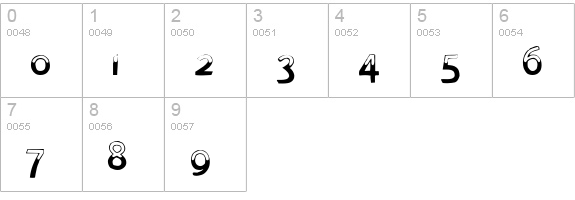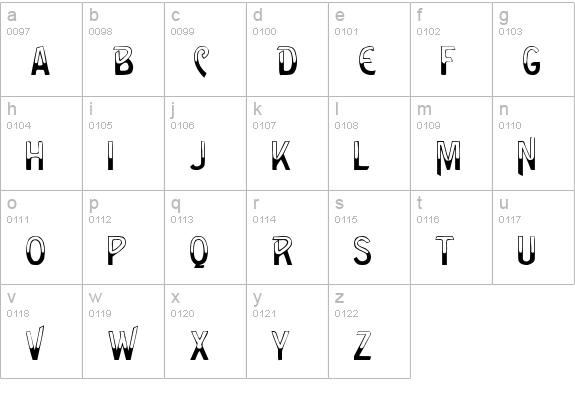
GreenCaps Font Details
GreenCaps is a modern and stylish font that exudes a sense of freshness and innovation. With its bold and eye-catching capital letters, this font is perfect for making a statement in any design project. The clean lines and sleek design of GreenCaps make it versatile and suitable for a wide range of applications, from logos to headlines to social media graphics. The best part? GreenCaps is completely free to download at FontsMarket.com. This means you can easily add this unique font to your collection without any cost. Whether you are a designer looking to add a fresh touch to your projects or a content creator in need of a standout font, GreenCaps is the perfect choice. Download it today and unleash your creativity with this free and stylish font.